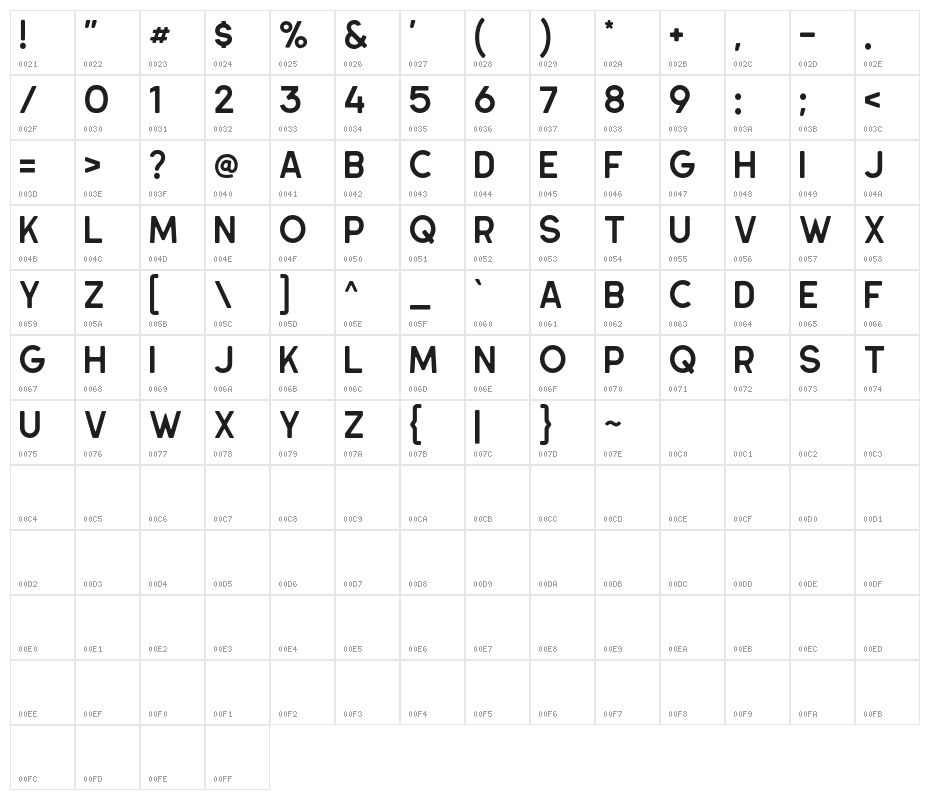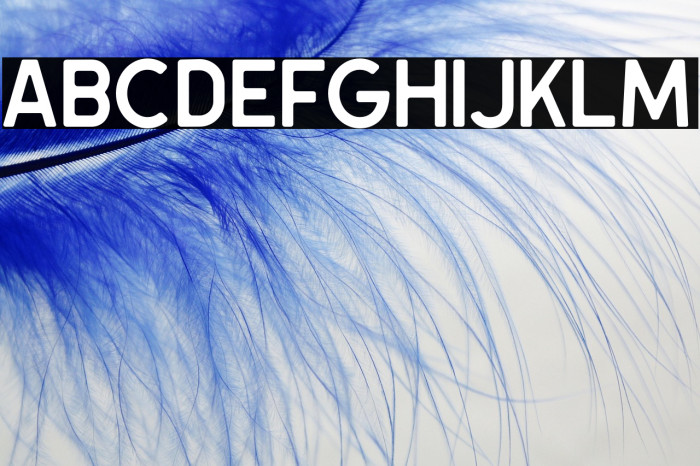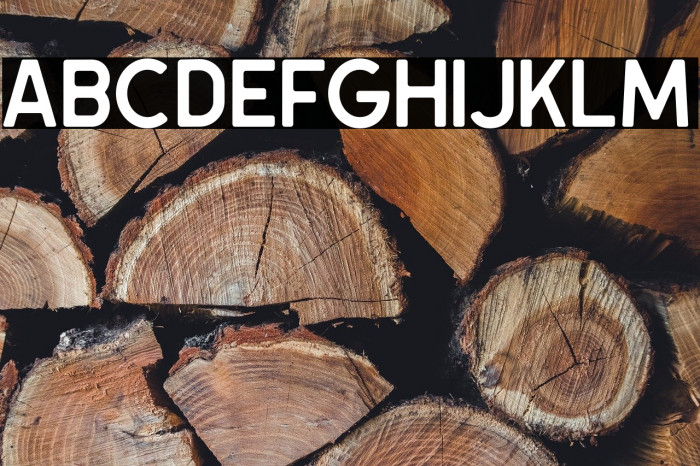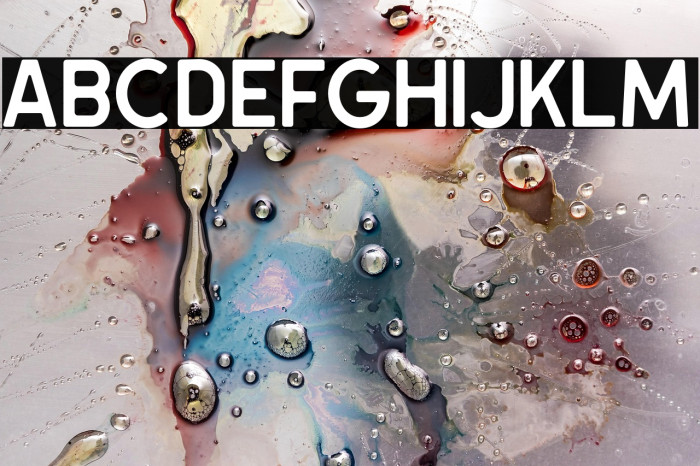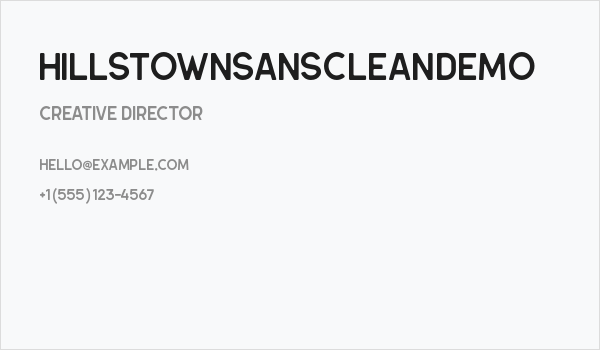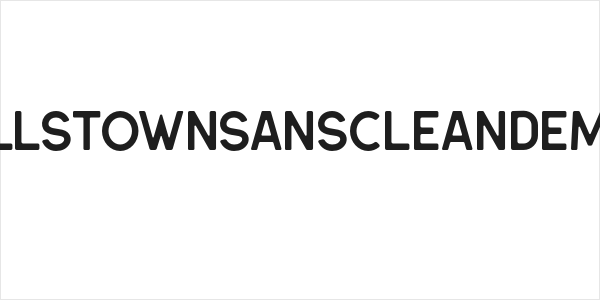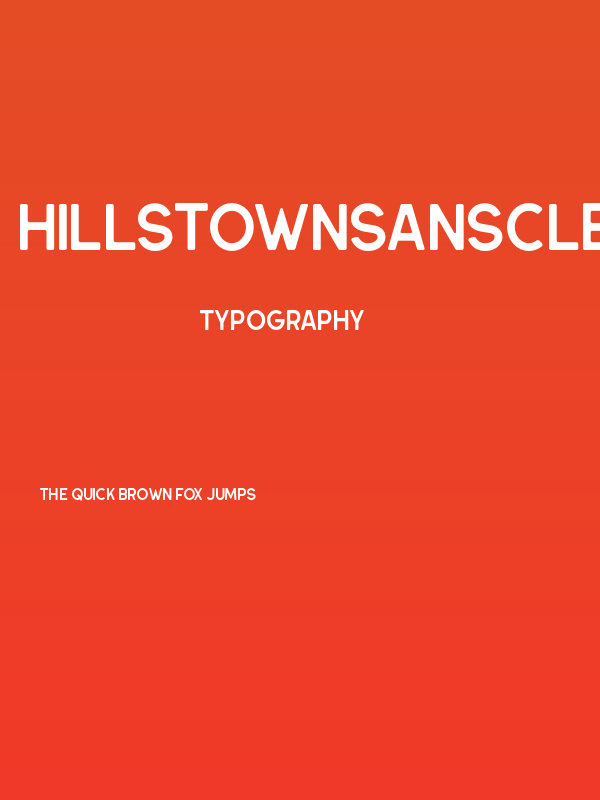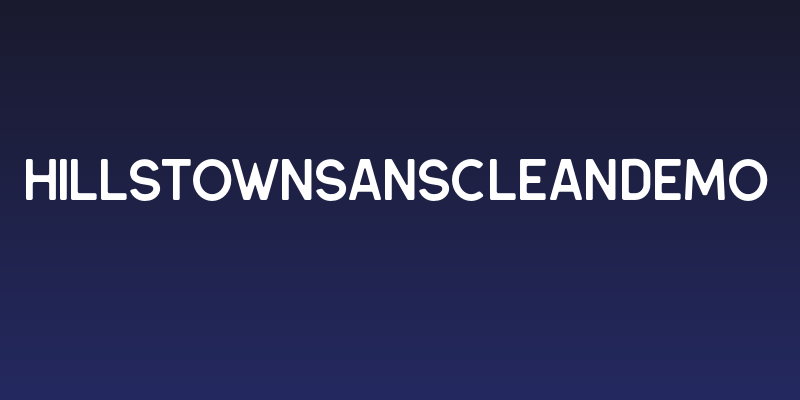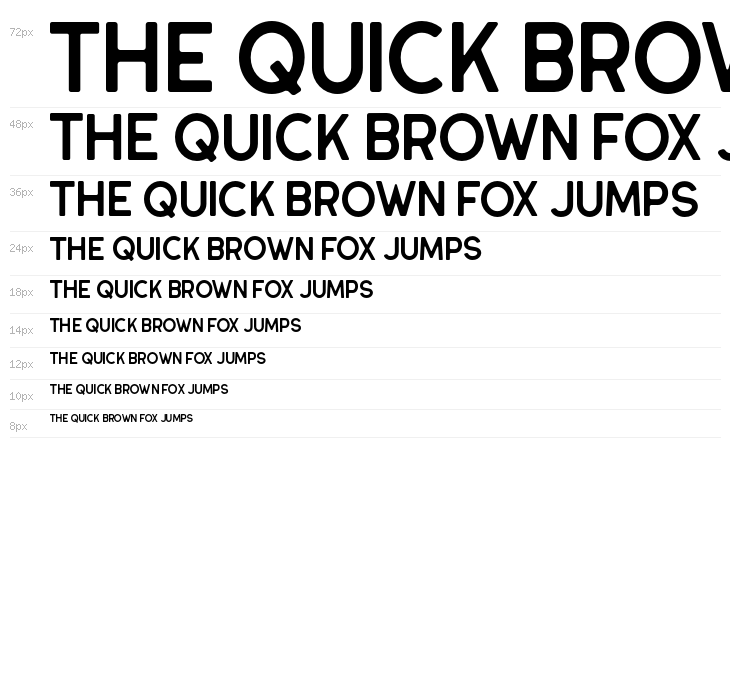
HillstownSansCleandemo Font
HillstownSansCleandemo Description
This font features a clean, modern sans-serif design with uniform stroke widths and a geometric structure. The characters are bold and rounded, providing a friendly and approachable appearance. The uppercase and lowercase letters maintain a consistent style, with smooth curves and clear legibility. The numerals are equally bold and well-proportioned, ensuring readability in various contexts. Special characters are included, matching the overall aesthetic with similar thickness and curvature. This font is versatile, suitable for both digital and print media, and can be used effectively in a wide range of design projects.